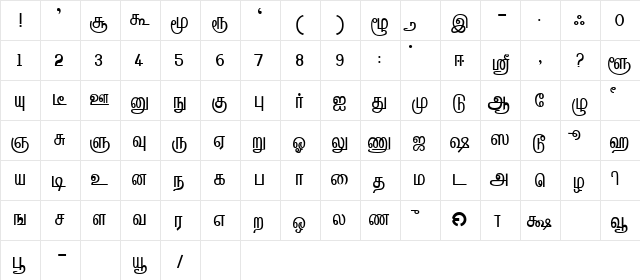
Hindolam Regular
Design Context for Hindolam Typeface
Hindolam is a composed and adaptable typeface that performs quietly and consistently across a wide range of design contexts.